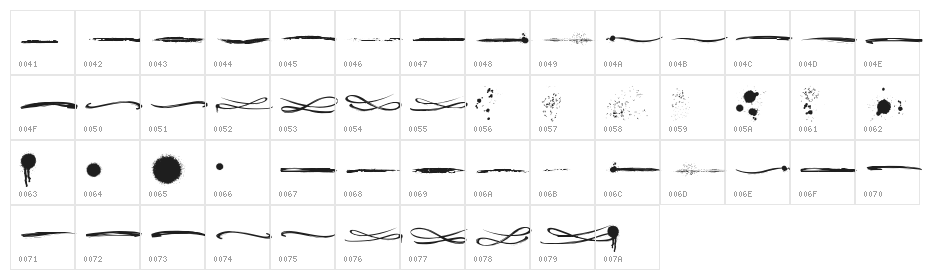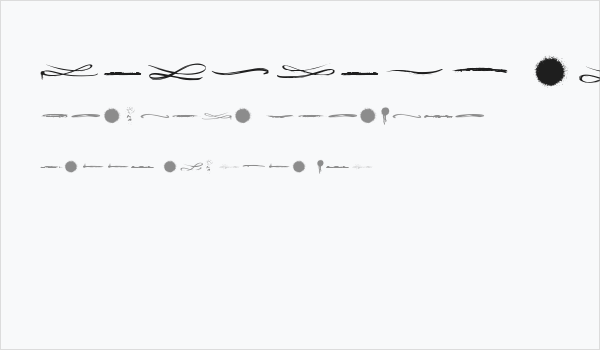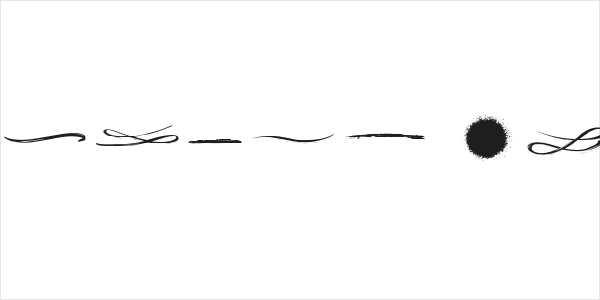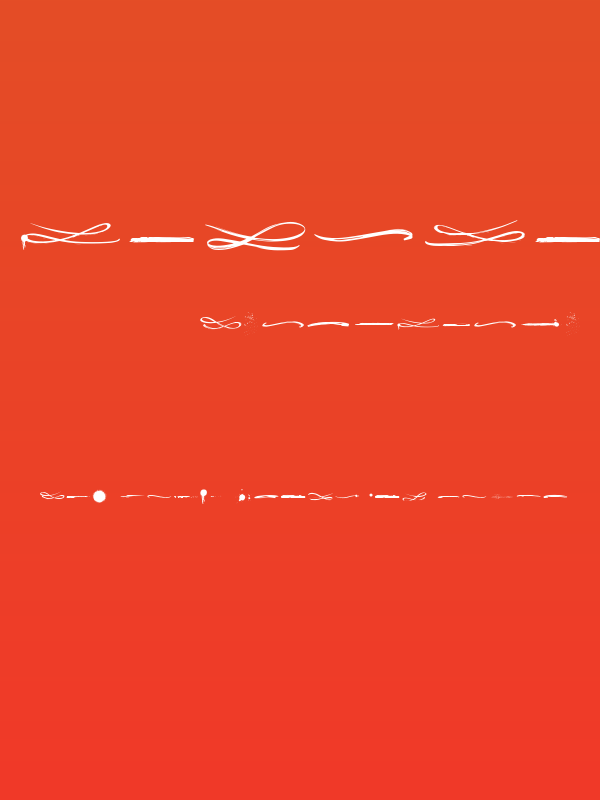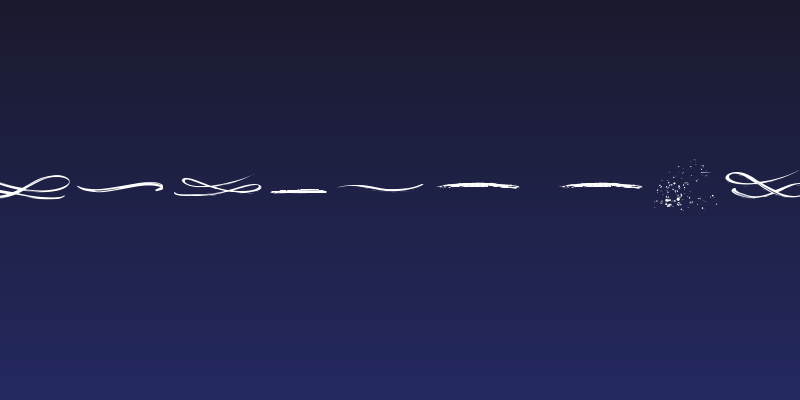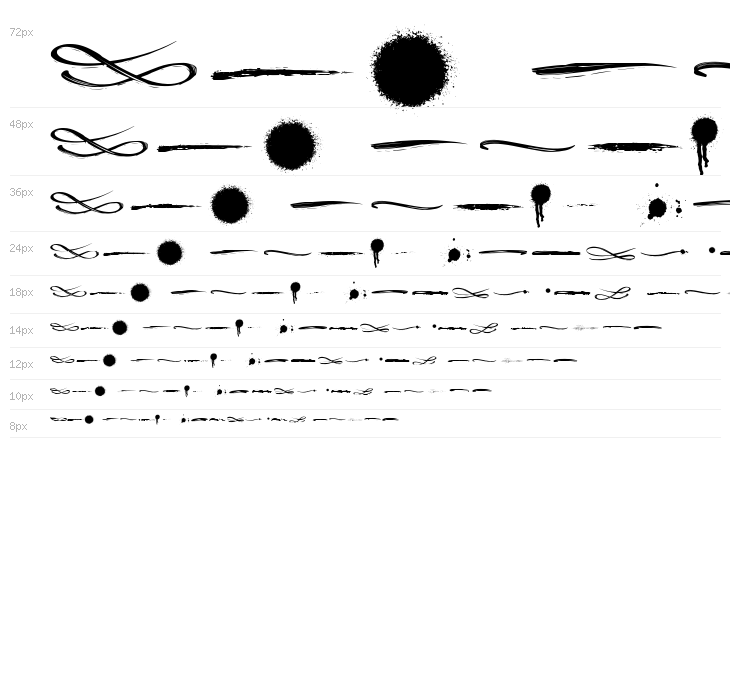
RASQUAKE extra Font
RASQUAKE extra Description
A decorative set of hand-drawn ink lines, splatters, and flourishes with a rough, organic texture. The elements vary from simple strokes to ornate swashes and ink blot effects, evoking a vintage or grunge aesthetic.
| Overall Style | Decorative, Vintage, Artistic |
| Use Case | Decorative elements, Borders, Dividers, Artistic accents |
| Proposed Projects | Invitations, posters, scrapbooking, vintage designs, artistic dividers, branding for creative projects. |